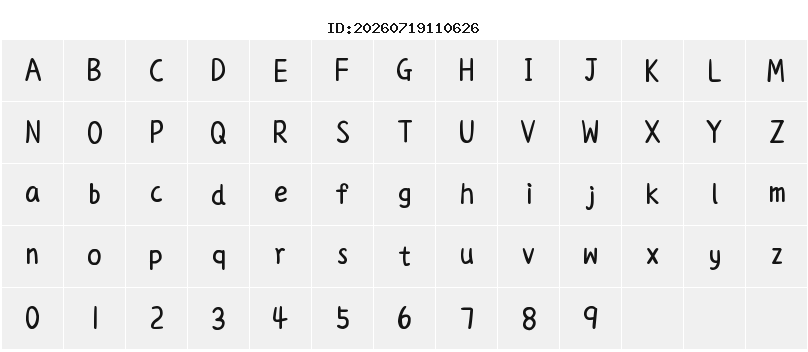
YEFONTKeAiXiaoXiongTi 標準 Preview
• Font Name: YEFONTKeAiXiaoXiongTi 標準
• Full Font Name: 也字工廠可愛小熊體 標準
• Manufacturer: 也字工厂
YEFONTKeAiXiaoXiongTi 標準.TTF is a modern, elegant sans-serif font designed for ultimate readability and visual harmony. Perfect for branding, headlines, web design, and print materials.